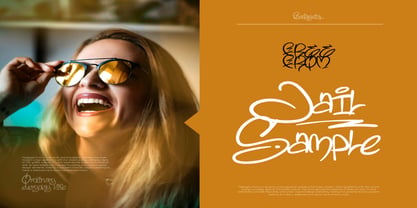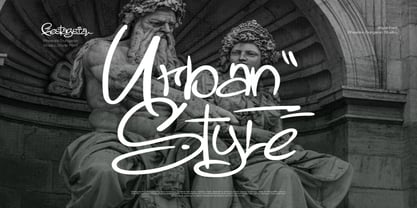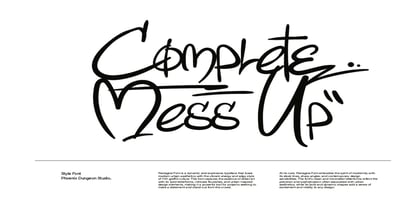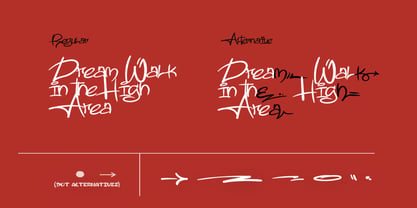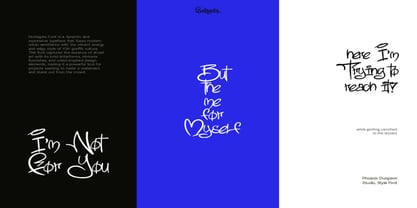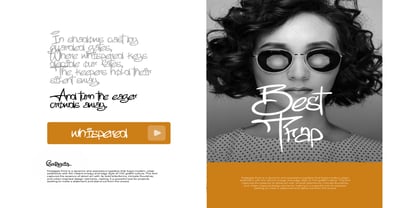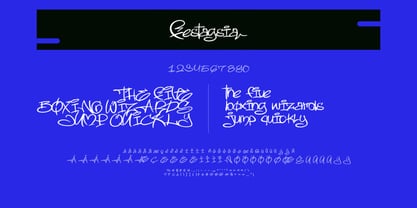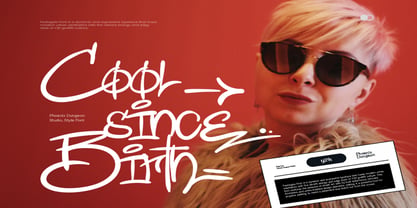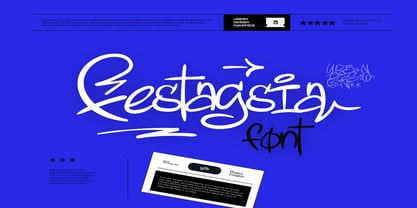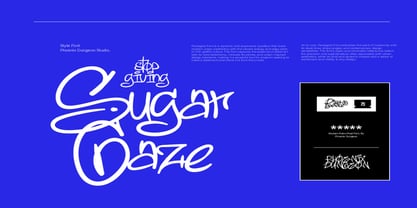
Festagsia
The Festagsia Font Family was designed by Alif Naufal Muzakki and published by Phoenix Group. Festagsia contains 1 styles. More about this family
Festagsia Font is a dynamic and expressive typeface that fuses modern urban aesthetics with the vibrant energy and edgy style of Y2K graffiti culture. This font captures the essence of street art with its bold letterforms, intricate flourishes, and urban-inspired design elements, making it a powerful tool for projects seeking to make a statement and stand out from the crowd.